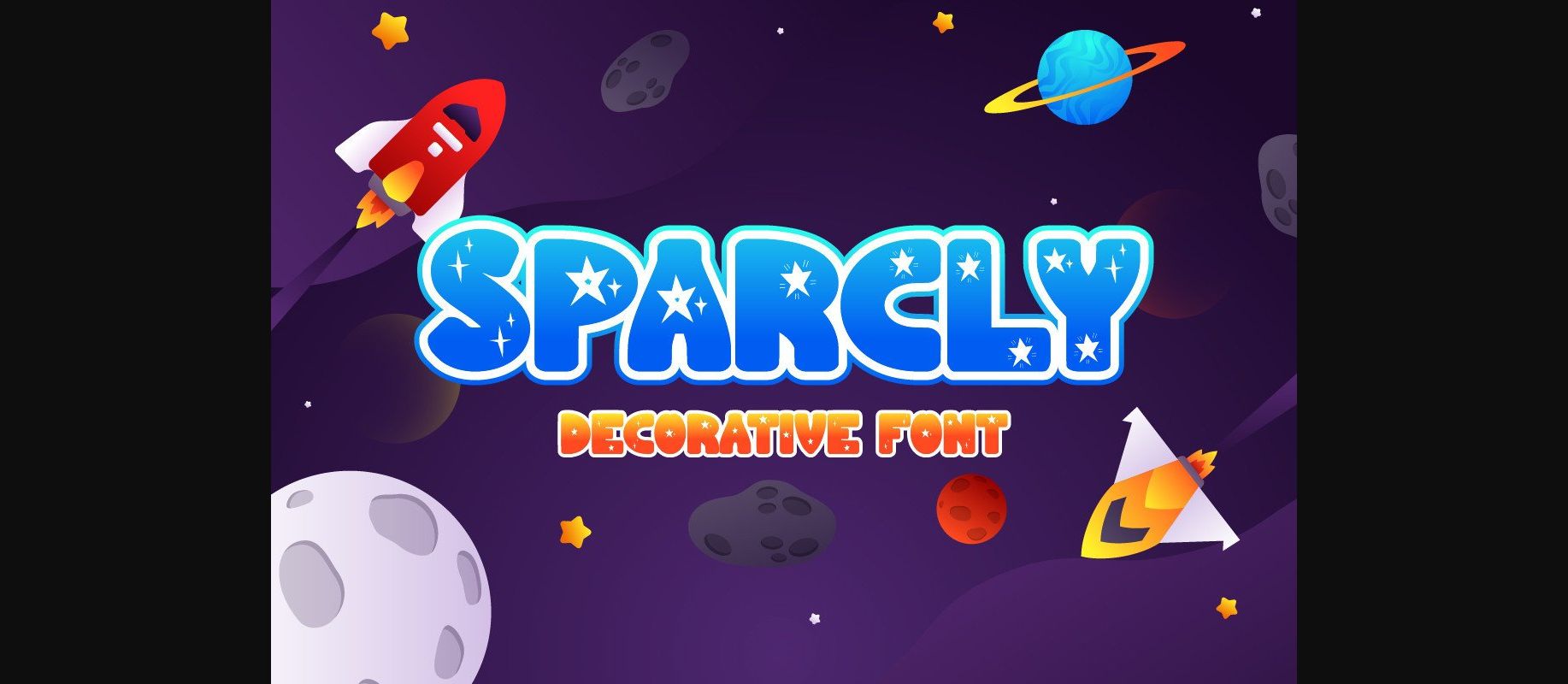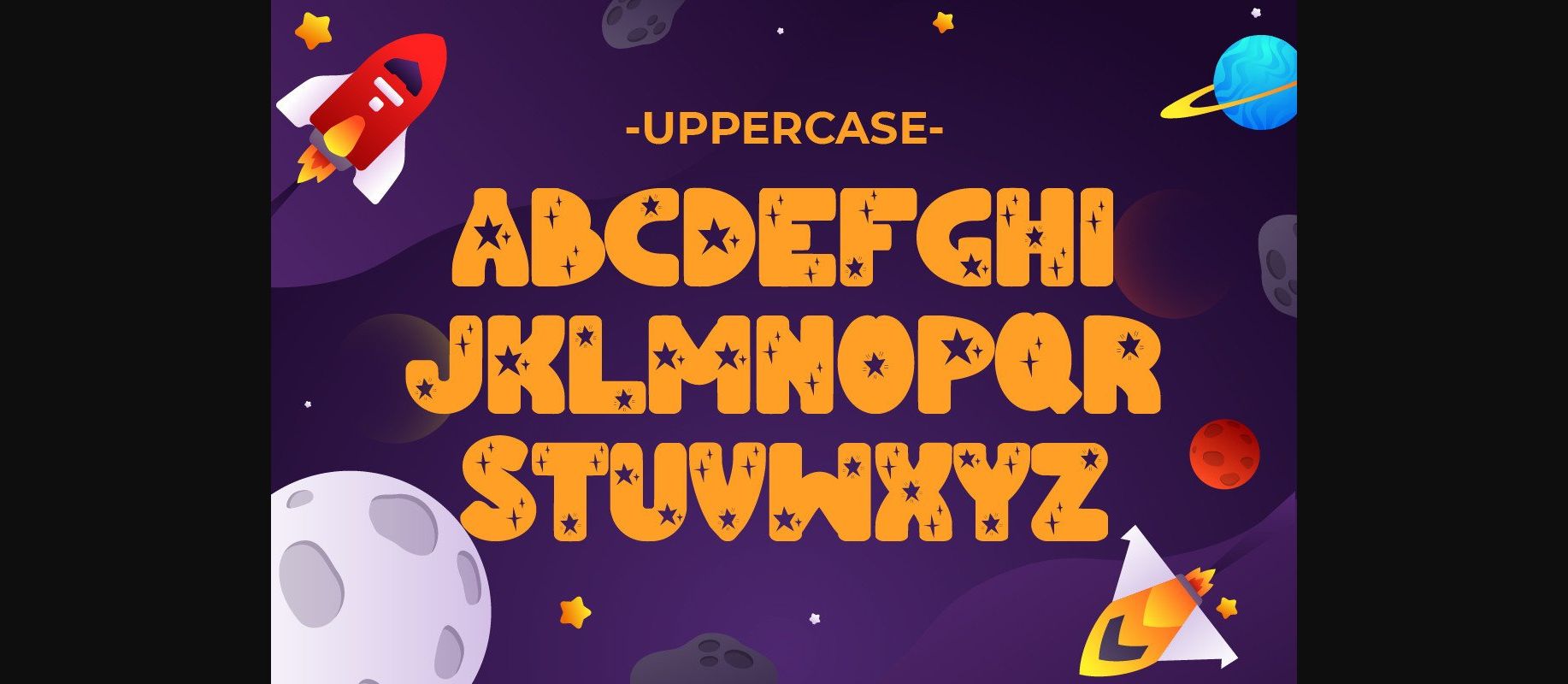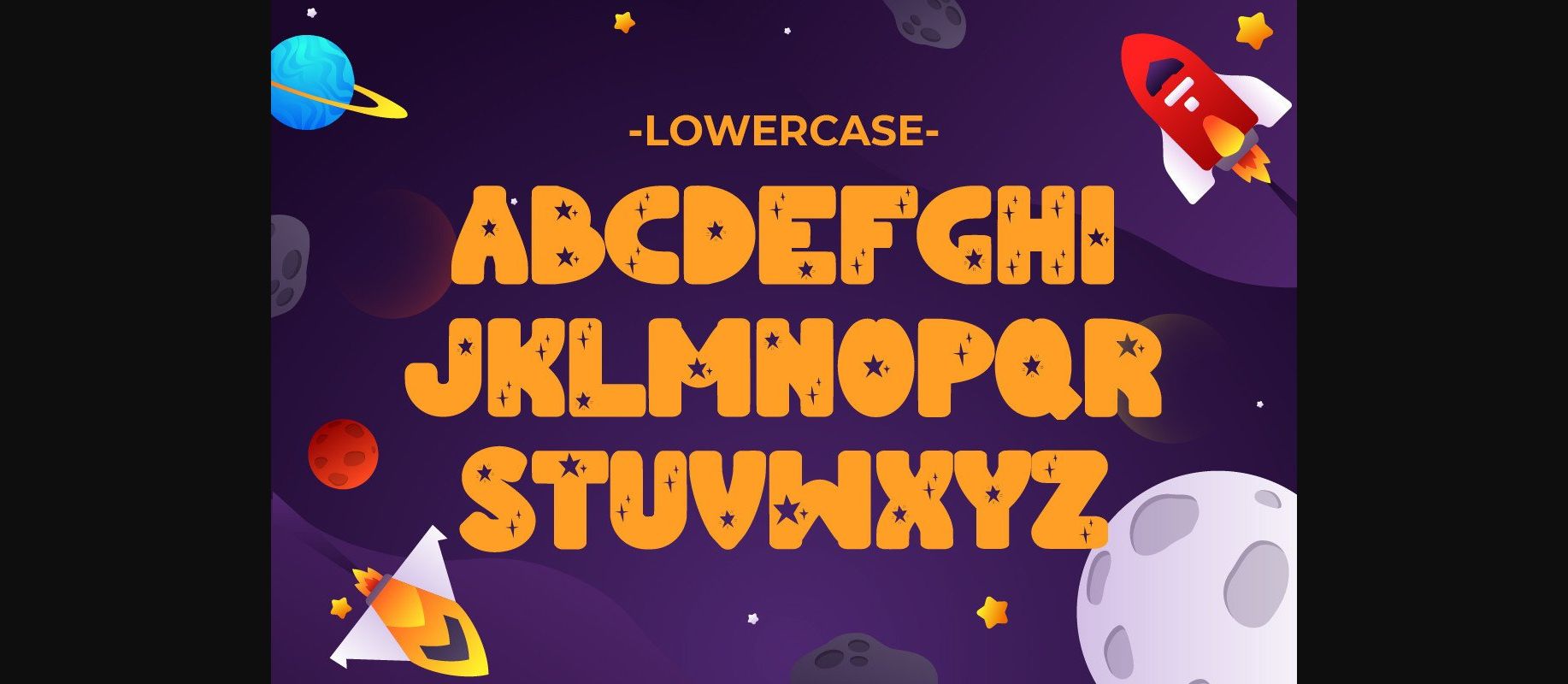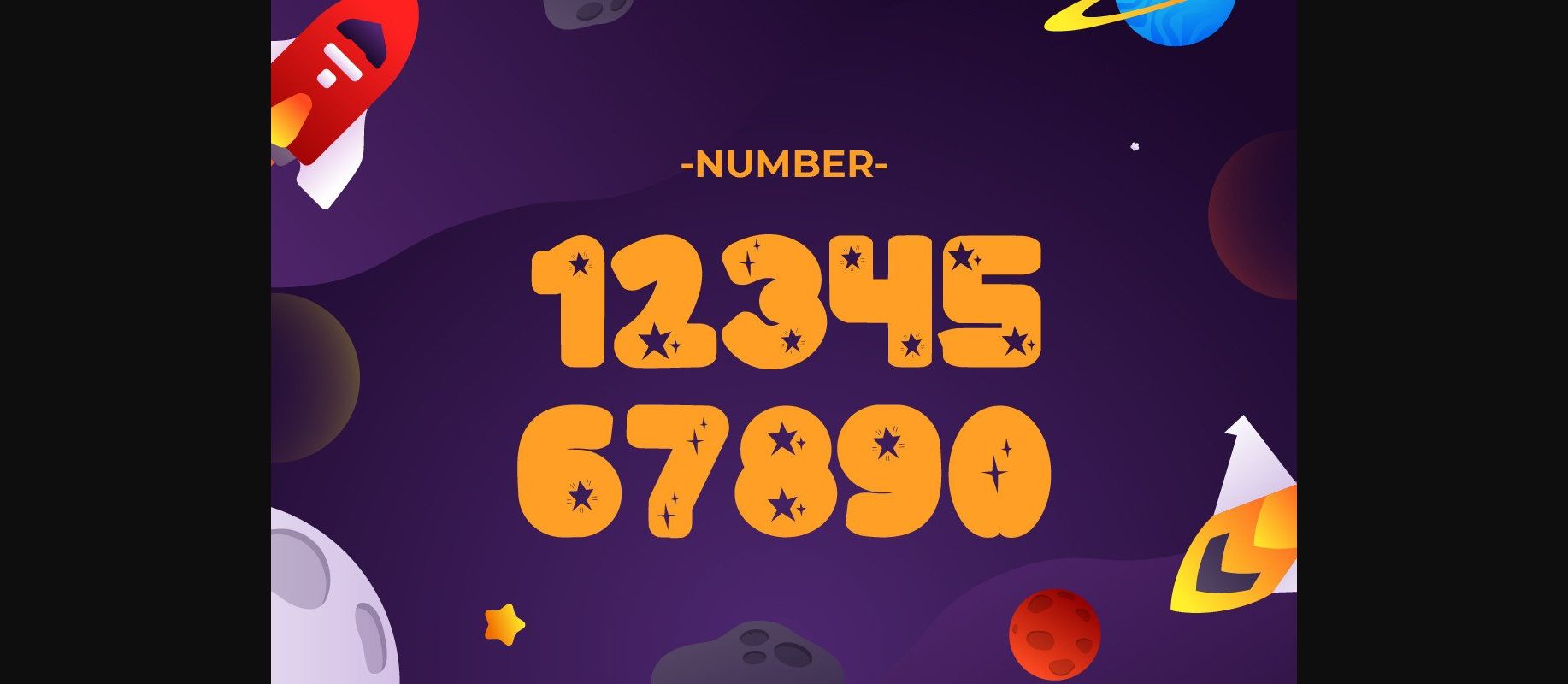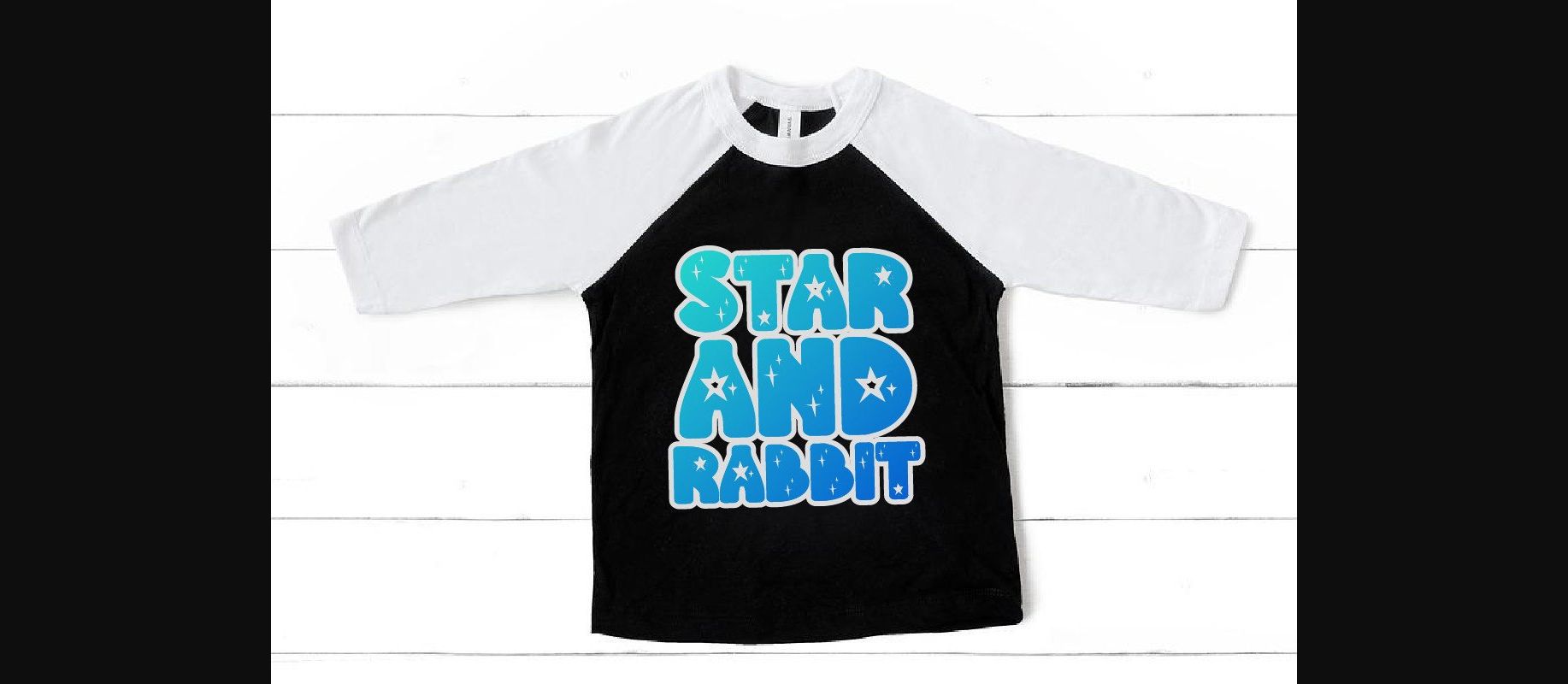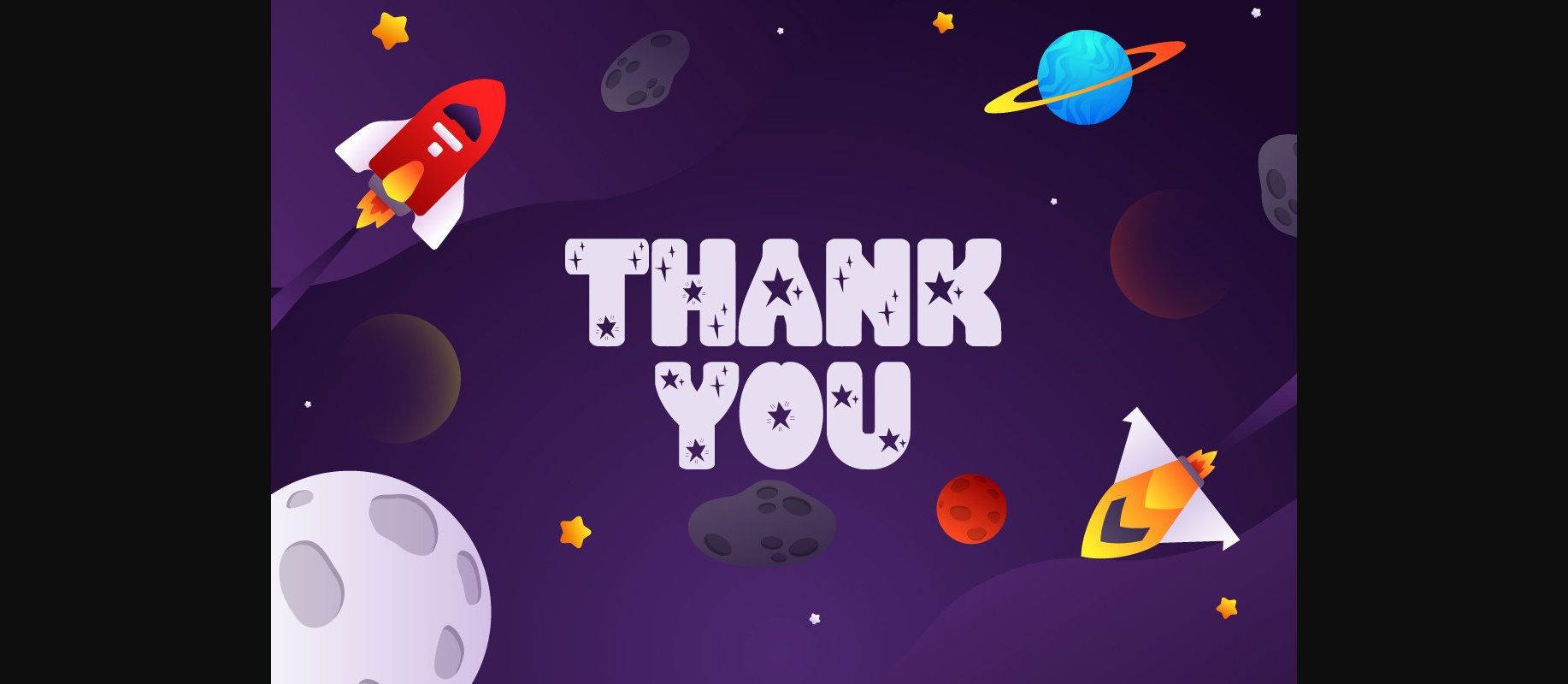
Sparcly Font
About Sparcly Font
Sparcly is a fun decorative font with cute sparkling stars. This font is perfect for t-shirts, posters, flyers, party invitations, totes, mugs, and other creative ideas.